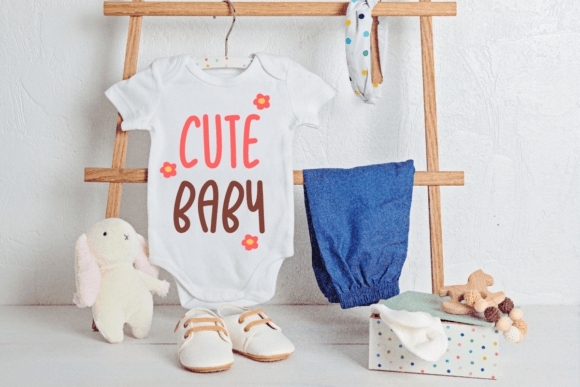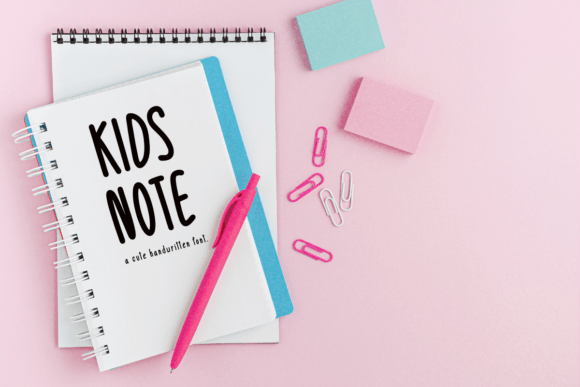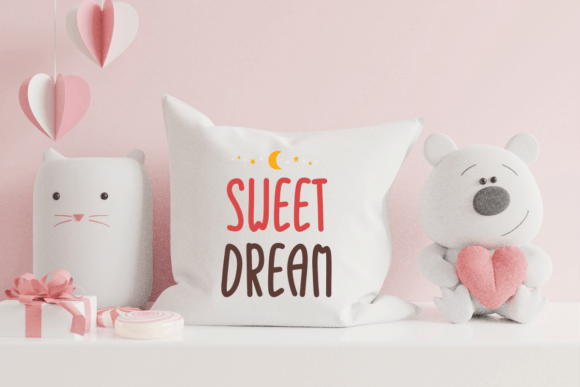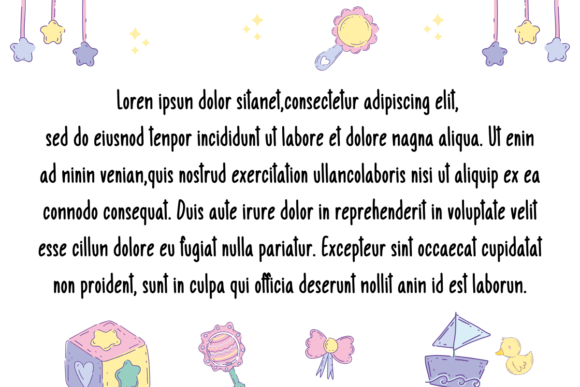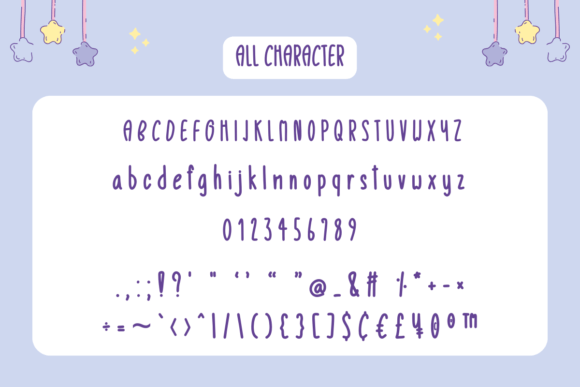
The Joy of Handwritten Text: Unlocking the Potential of Kids Note Font
Do you remember the first time you created something special for a child? Maybe it was a handmade card or a personalized picture frame. Whatever it was, the smile on their face is forever etched in your memory. As designers, we’re always on the lookout for the perfect tool to bring our creative ideas to life. That’s where the Kids Note Font comes in – a charming, handwritten font that’s perfect for adding a personal touch to any project.
This versatile font is designed to be the centerpiece of your design. Whether you’re creating crafts for kids, designing greeting cards, or simply want to add a playful touch to your text, Kids Note Font is the perfect choice. Its simple yet charming design makes it a valuable asset for any designer looking to add a little extra something special to their work.
Kids Note Font Key Features
- Unique Handwritten Style: Kids Note Font features a distinctive, childlike handwritten style that is perfect for educational materials, children’s books, and other projects where a playful, informal tone is desired.
- Size and Resolution: Designed to be scalable, Kids Note Font can be used at various sizes, from small text to large headings, without compromising readability or quality. It is optimized for print and digital use at resolutions up to 300 DPI.
- Character Set: Includes a comprehensive set of characters, including uppercase and lowercase letters, numbers, punctuation marks, and special characters, making it suitable for a wide range of applications.
- Language Support: Kids Note Font supports multiple languages, including English, Spanish, French, German, Italian, and many others, allowing you to use it in international projects.
- Customization Options: The font includes various customization options, such as ligatures, swashes, and alternate characters, which can be used to add a personal touch to your designs.
Kids Note Font Review
Overall, I’m quite pleased with the Kids Note Font. It has a playful, hand-drawn quality that immediately conveys a sense of fun and creativity. ✨ The font is perfect for kid-friendly designs, from educational materials to children’s book covers. Its unique, expressive characters bring a sense of personality to any design.
One of the standout features of the Kids Note Font is its wide range of characters. It includes not only letters and numbers but also various symbols and icons that can add an extra layer of engagement to your design. ✨ The font is also highly customizable, allowing you to adjust the size, color, and spacing to suit your needs.
While the Kids Note Font is a great choice for many projects, there are a few limitations to consider.
- ⚠️ Limited legibility: The font’s playful quality can sometimes make it difficult to read, especially at smaller sizes. This may be a concern for designs where clarity is paramount.
- ⚠️ Limited language support: The font primarily supports the Latin alphabet, which may limit its use in multilingual designs.
Overall, the Kids Note Font is a great choice for designers working on kid-friendly projects. While it may have some limitations, its unique charm and wide range of characters make it a valuable addition to any designer’s toolkit.
Kids Note Font is ideal for:
– Creating children’s educational materials
– Designing kids’ party invitations and decorations
– Developing children’s book illustrations and typography
Tips for Getting the Most Out of Kids Note Font
To maximize the effectiveness of Kids Note Font, consider the following tips:
– Use the font in combination with colorful illustrations and graphics to create a playful atmosphere.
– Experiment with different font sizes and colors to create visual hierarchy and emphasis.
Q: What is the minimum and maximum font size supported by the Kids Note Font?
The Kids Note Font supports font sizes from 6pt to 72pt. While it is technically possible to use the font at sizes outside of this range, the results may be unpredictable and may not display correctly in all applications.